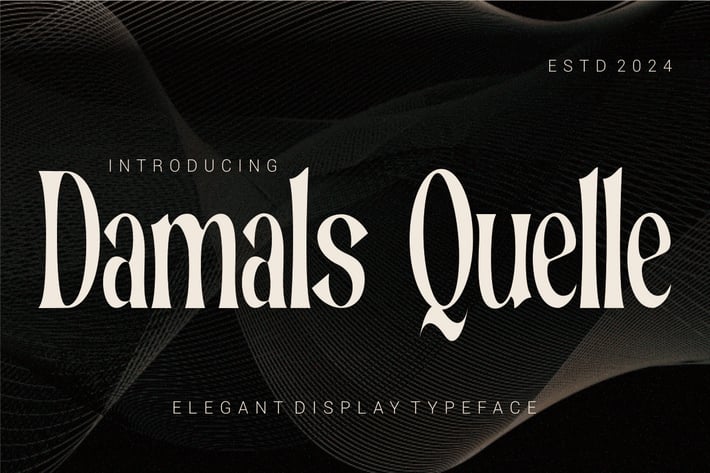
Damals Quelle - Elegant Display Typeface
Proudly present our new product Damals Quelle - Elegant Display Typeface
is a modern and authentic font. Perfect for professional needs and product branding, this font is suitable for any branding project such as quotes, logos, blog headers, posters, ribbons, letters, invitations, stationery, etc... Designed to be versatile and flexible that can be used on a variety of projects and media. extraordinary in a variety of contexts.